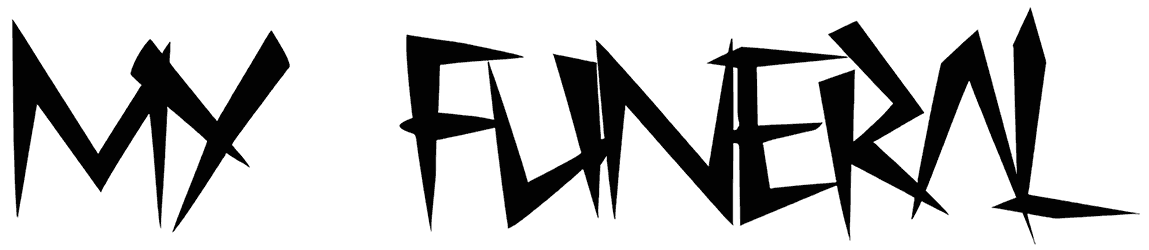
My Funeral Font
The sharp angles and broken lines in My Funeral are responsible for creating a sense of fear and a terrifying nature. By using this horror font, you can present your different visions of the scary atmosphere of computer games, detective books, and crime movies to other designers.
This metal font does not contain any lowercase letters and numbers, sure thing it would be useful in heightening your illustration. Give it a shot and see how it sounds.